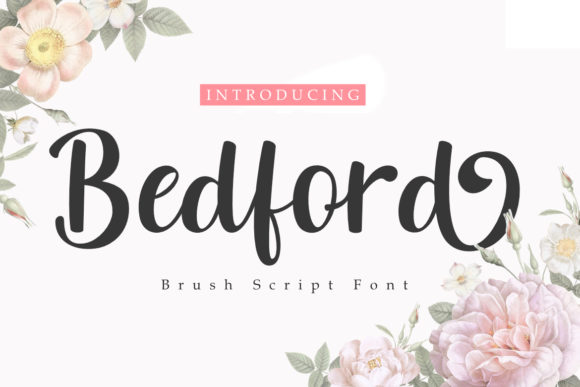
Behold the Bedford Font, a script font family crafted by Madatype Studio, a name synonymous with typographic excellence. Bedford is not just a font; it's an artistic odyssey, a journey into the realm of beauty and elegance. Its characters, meticulously crafted, dance across the digital canvas with a grace and poise that will leave you spellbound.
With Bedford, you're not just downloading a font; you're inviting art into your creative space. Its delicate strokes, reminiscent of a calligrapher's quill, will transform your designs into masterpieces. Its flowing curves evoke a sense of effortless elegance, making it the perfect choice for logos, branding, and any project yearning for a touch of sophistication.
Bedford's versatility extends far beyond its aesthetic charm. It's a font that adapts seamlessly to a myriad of design styles, from the classic to the contemporary. Whether you're creating a wedding invitation, a fashion catalog, or a social media post, Bedford will elevate your vision with its timeless beauty.